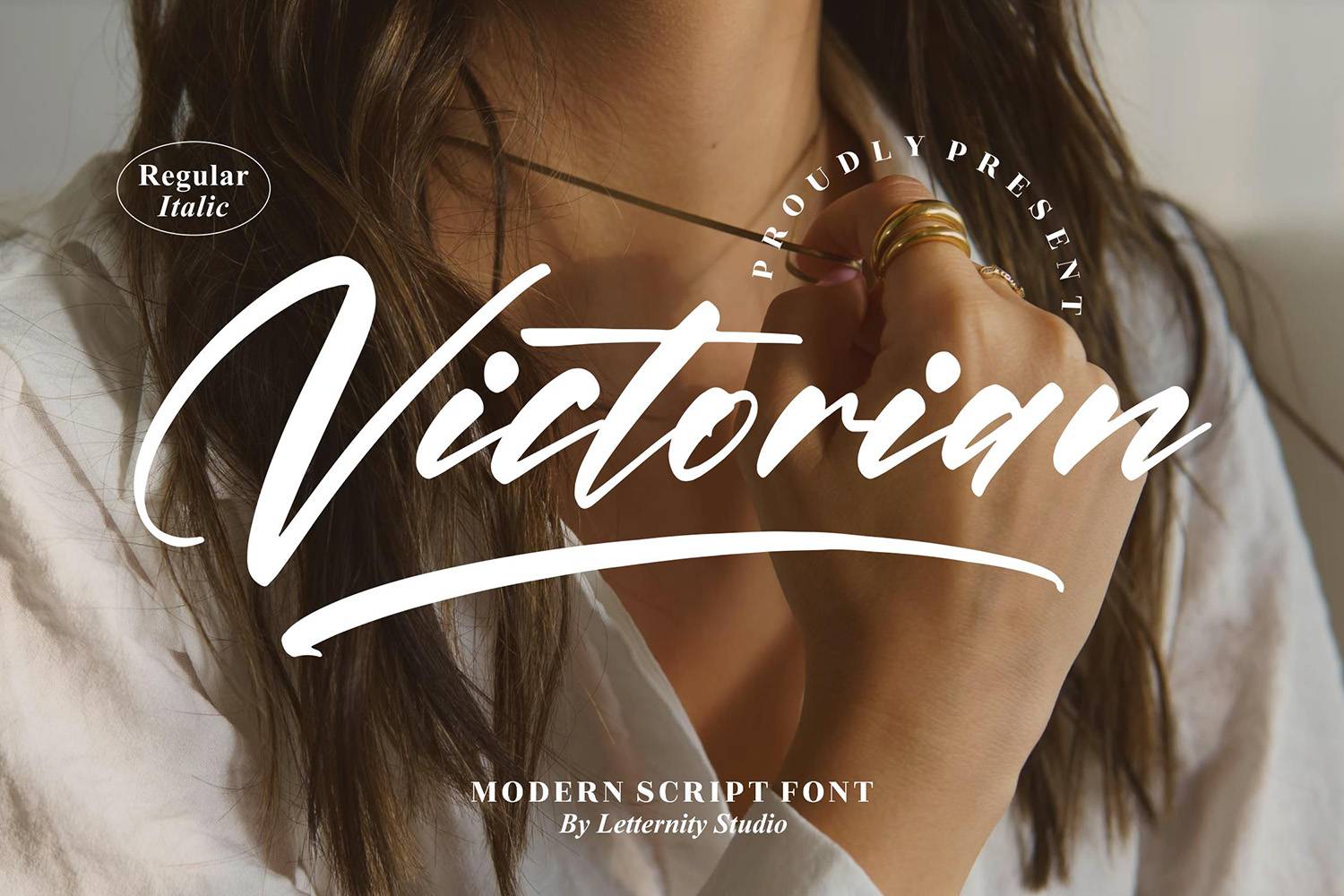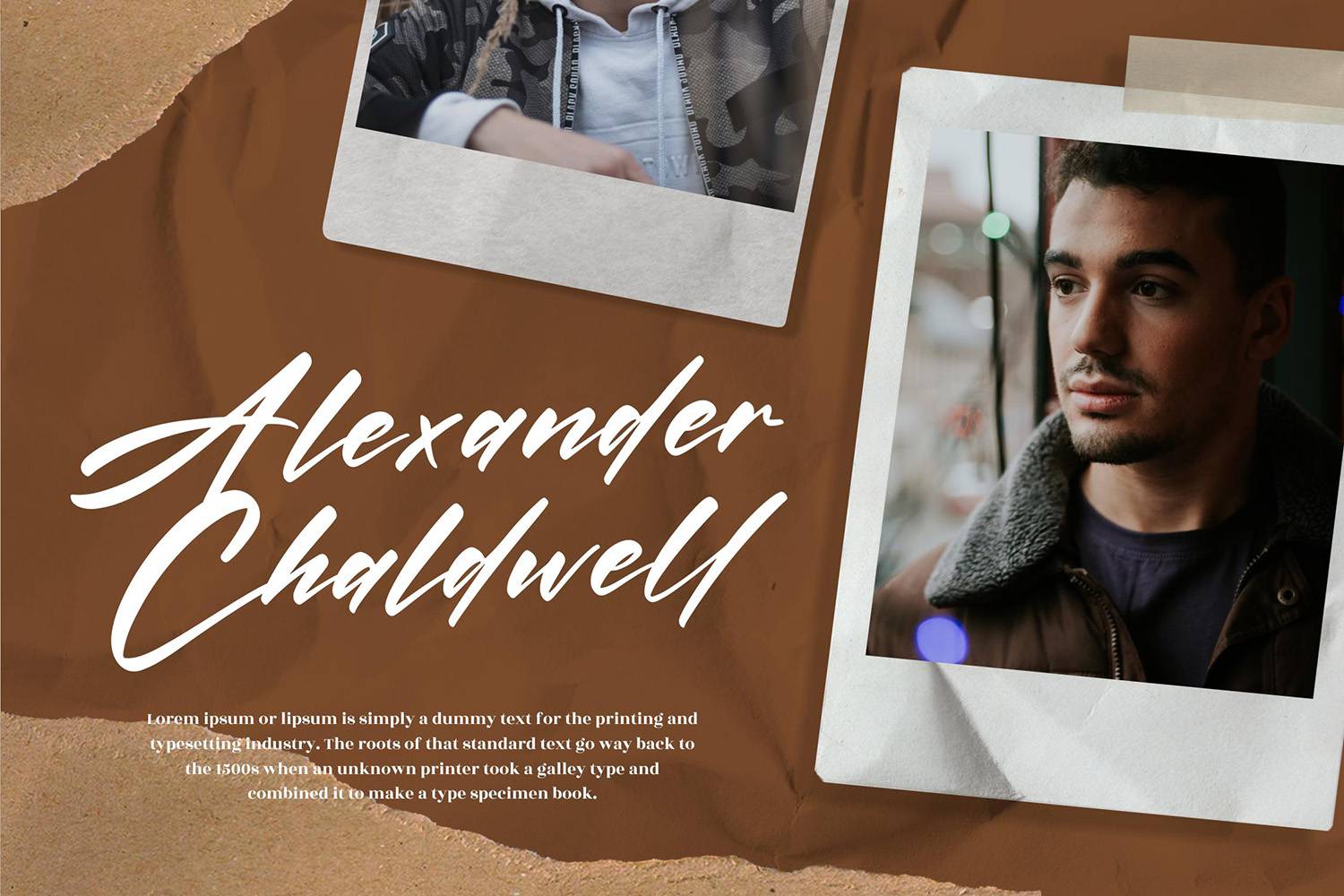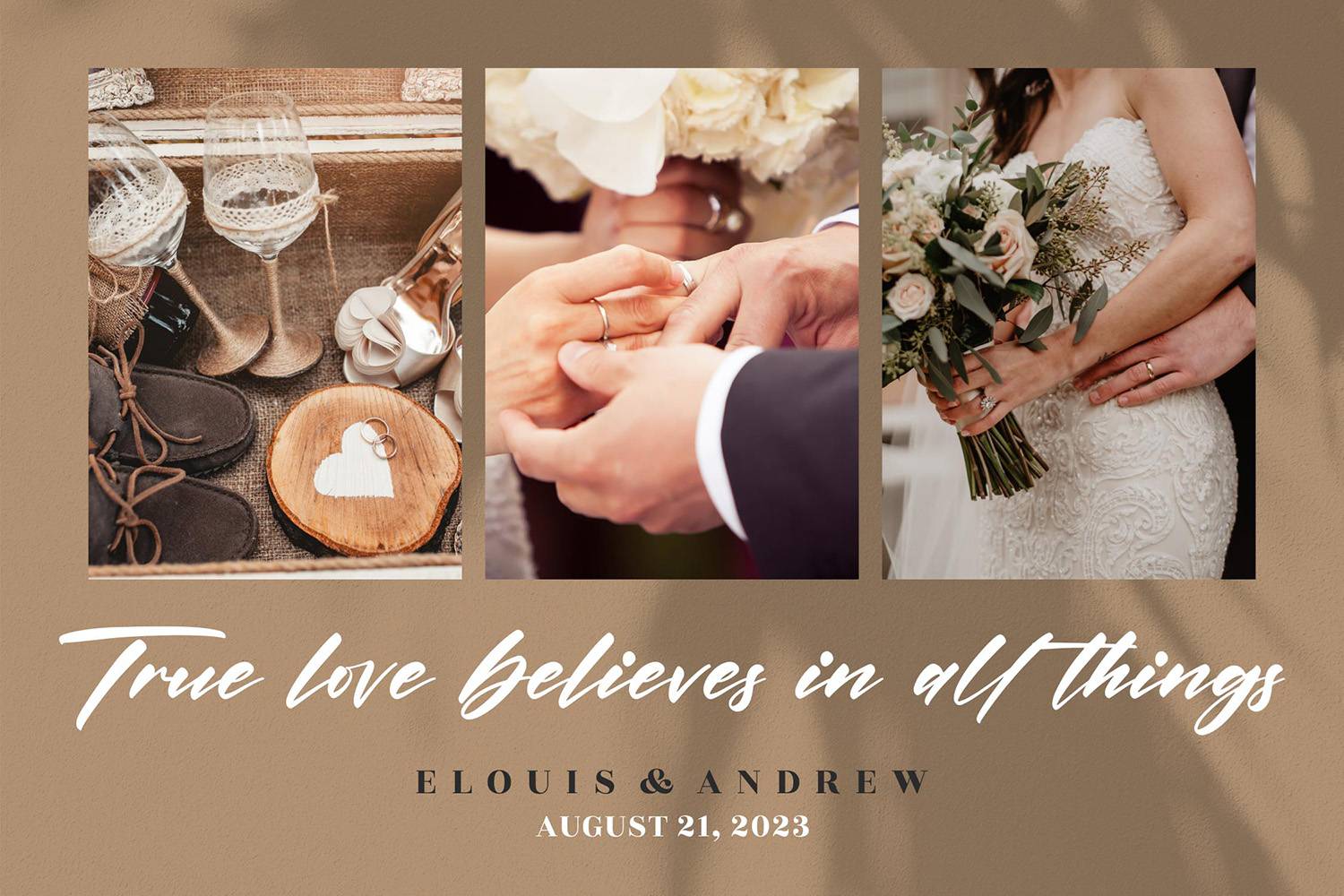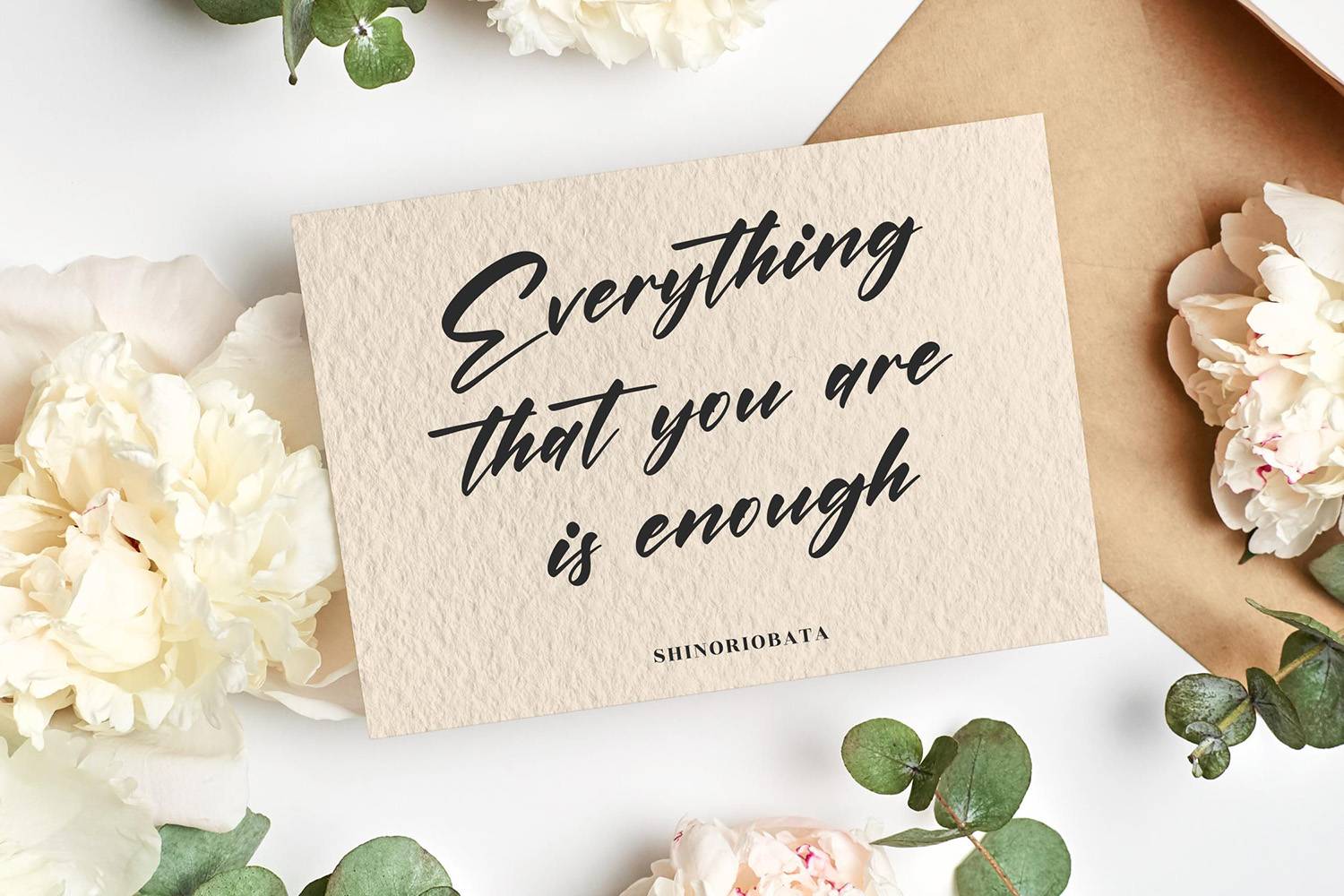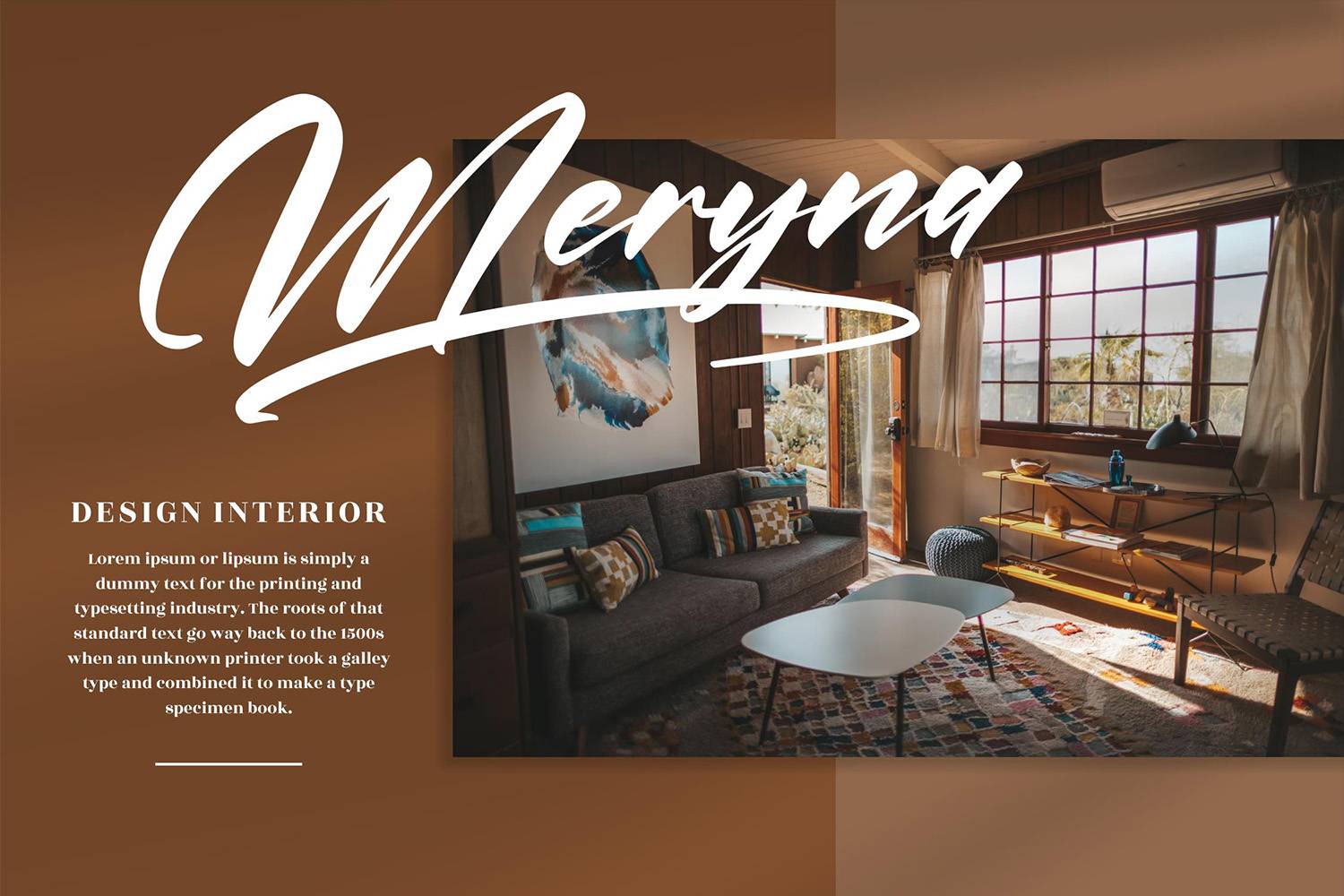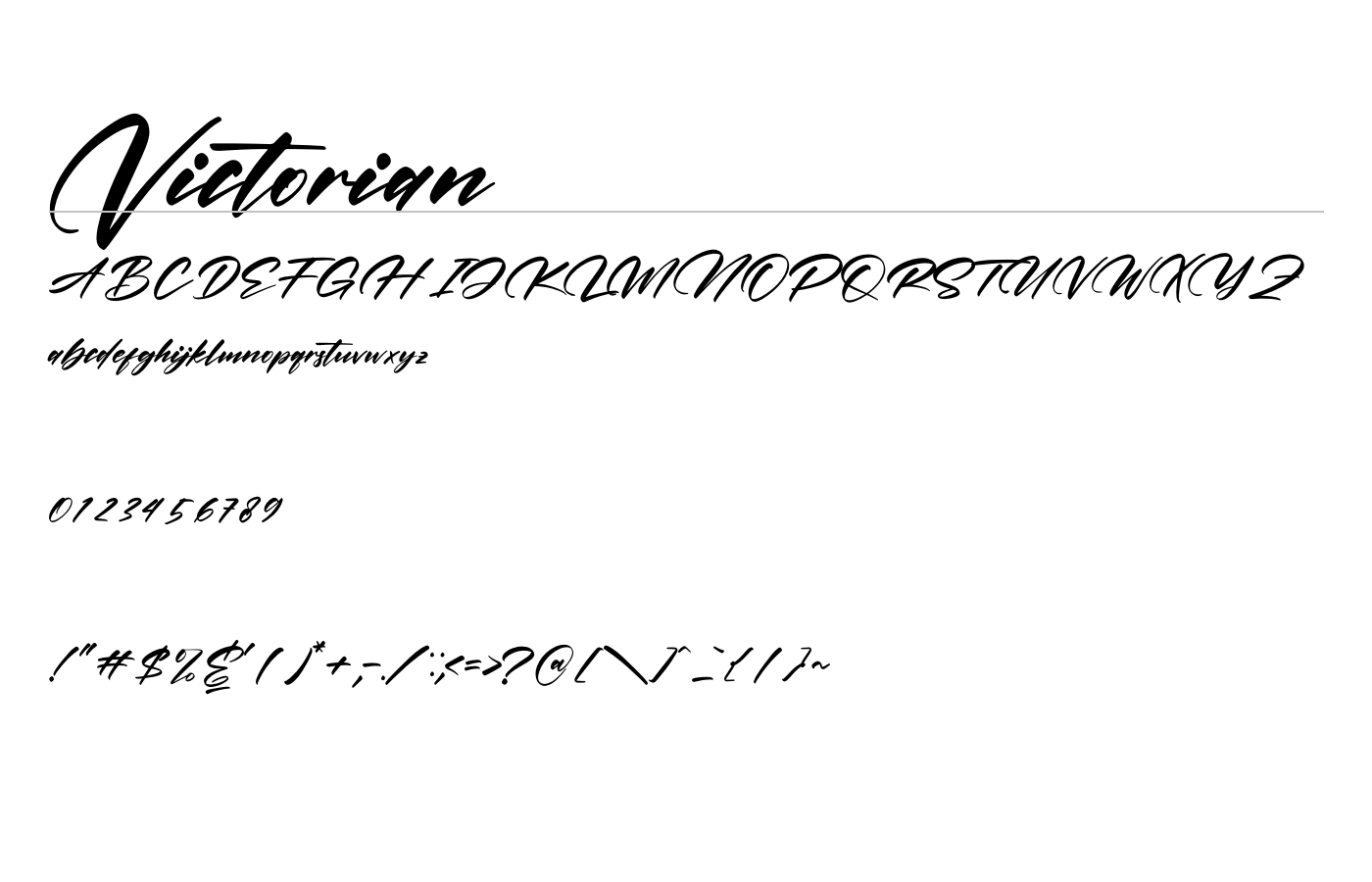
Victorian Font is a stylish and elegant script typeface characterized by its fluid, hand-drawn strokes and a dynamic contrast between thick and thin lines. Its cursive letterforms convey a vintage yet sophisticated charm, making it ideal for invitations, branding, and decorative headlines seeking a graceful, personal touch. This font works beautifully in designs that aim to evoke an artistic and refined atmosphere.
Victorian Font
About Victorian Font